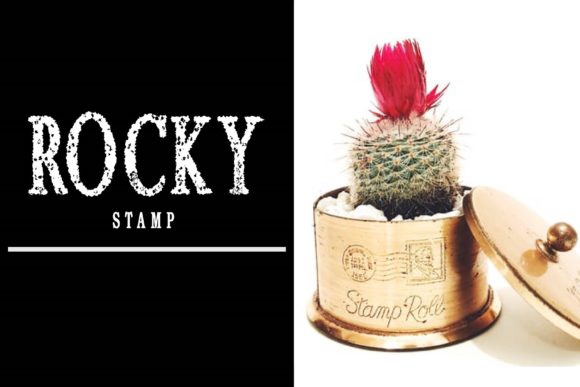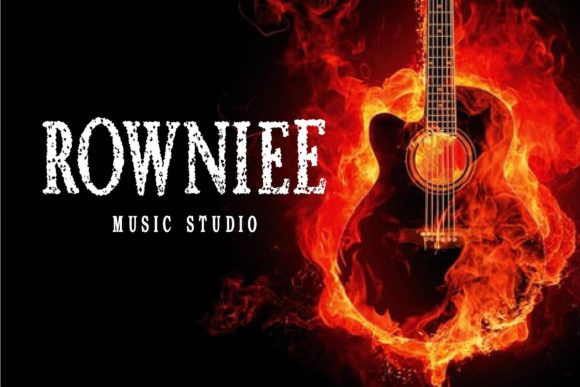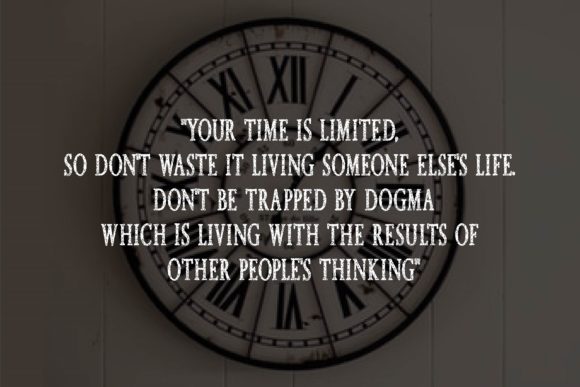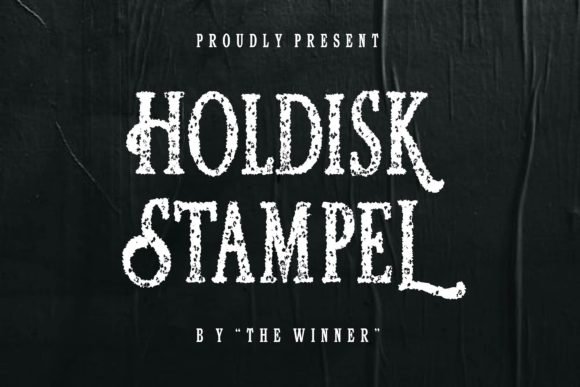
Introduction to Holdisk Stampel Font
Introducing Holdisk Stampel Grunge Vintage Serif font.
It’s perfect for branding, product packaging, invitations, quotes, t-shirts, labels, posters, or any logo you want to develop Make all your design projects more attractive and take your designs to the next level with Holdisk Stampel.
Key Features of Holdisk Stampel Font
Why Choose Holdisk Stampel Font?
Holdisk Stampel Font offers exceptional quality and versatility, making it a valuable addition to your design toolkit. Whether you’re creating for personal projects or commercial use, Holdisk Stampel Font delivers professional results.